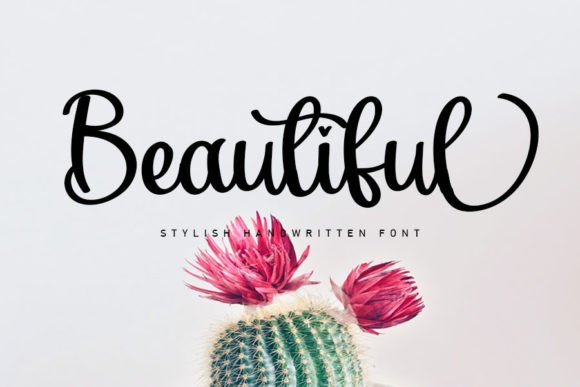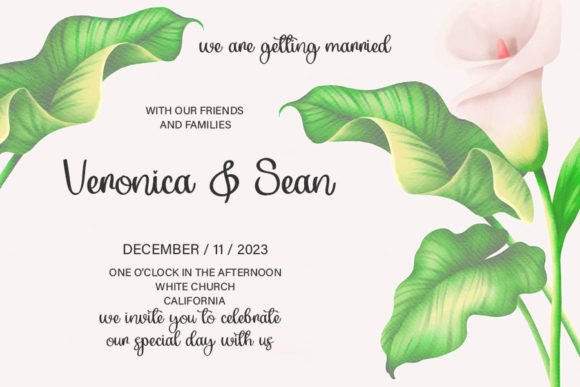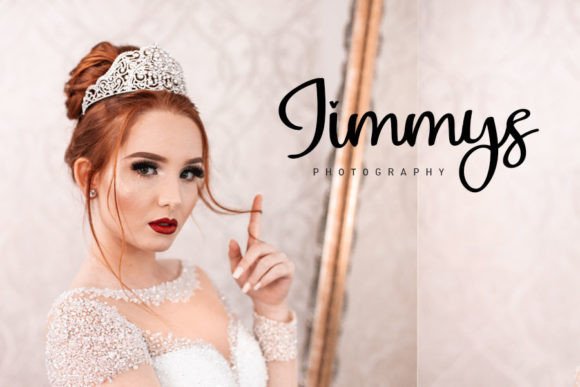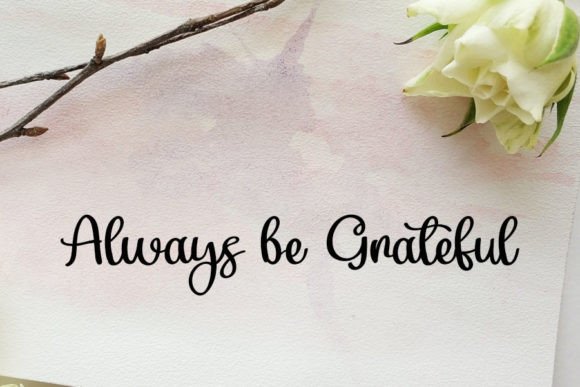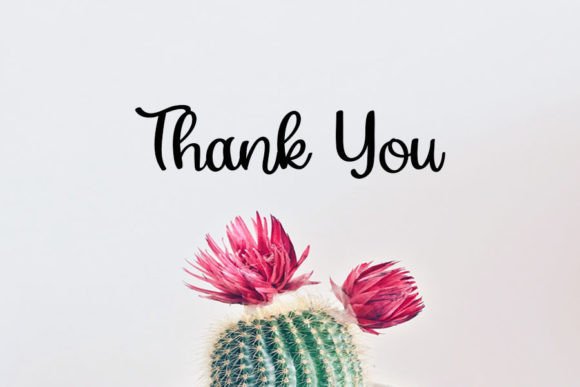
Beautiful Font
About Beautiful Font
Beautiful font is a lovely and timeless handwritten typeface designed to add charm and personality to your creative projects. Each letter is crafted with a unique and graceful touch, bringing your designs to life. Whether you’re creating logos, branding materials, or inspirational quotes, Beautiful font offers elegance and distinctiveness that make your work stand out.
Timeless and Elegant Handwritten Style
The Beautiful font features flowing, natural letterforms that combine classic handwriting with modern style. Its well-balanced and smooth strokes create an inviting and sophisticated look. This font is ideal for projects that require a warm and personal touch while maintaining professional appeal.
Ideal Uses for Beautiful Font
This versatile font is perfect for:
• Logo and brand identity design
• Inspirational quotes and social media graphics
• Packaging and product labels
• Greeting cards and invitations
• Editorial headlines and posters
Using Beautiful fon will help your projects gain a unique and memorable style.
Why Choose Beautiful Font?
Designers choose Beautiful font for its:
• Lovely, timeless handwritten style
• Unique letterforms that bring designs to life
• Versatility across both print and digital platforms
• Ability to convey elegance and warmth
Add Charm and Personality to Your Designs
Typography plays a vital role in expressing your message. The Beautiful fon adds an elegant, personal feel that enhances the emotional connection with your audience. It’s perfect for creatives seeking a fon that is both classic and charming.
Final Thoughts on Beautiful Font
In summary, Beautiful fon is a timeless and lovely handwritten typeface ideal for designers looking to create eye-catching and elegant designs. Add Beautiful fon to your collection for projects that need a unique and graceful touch.